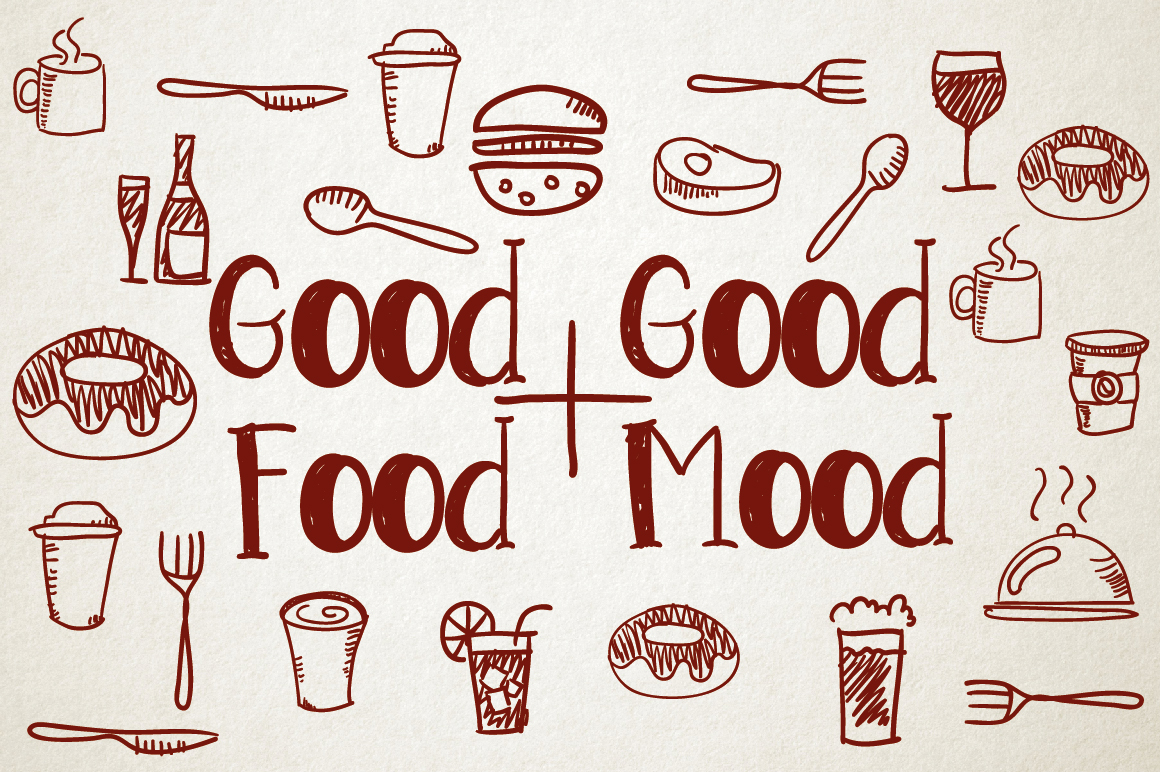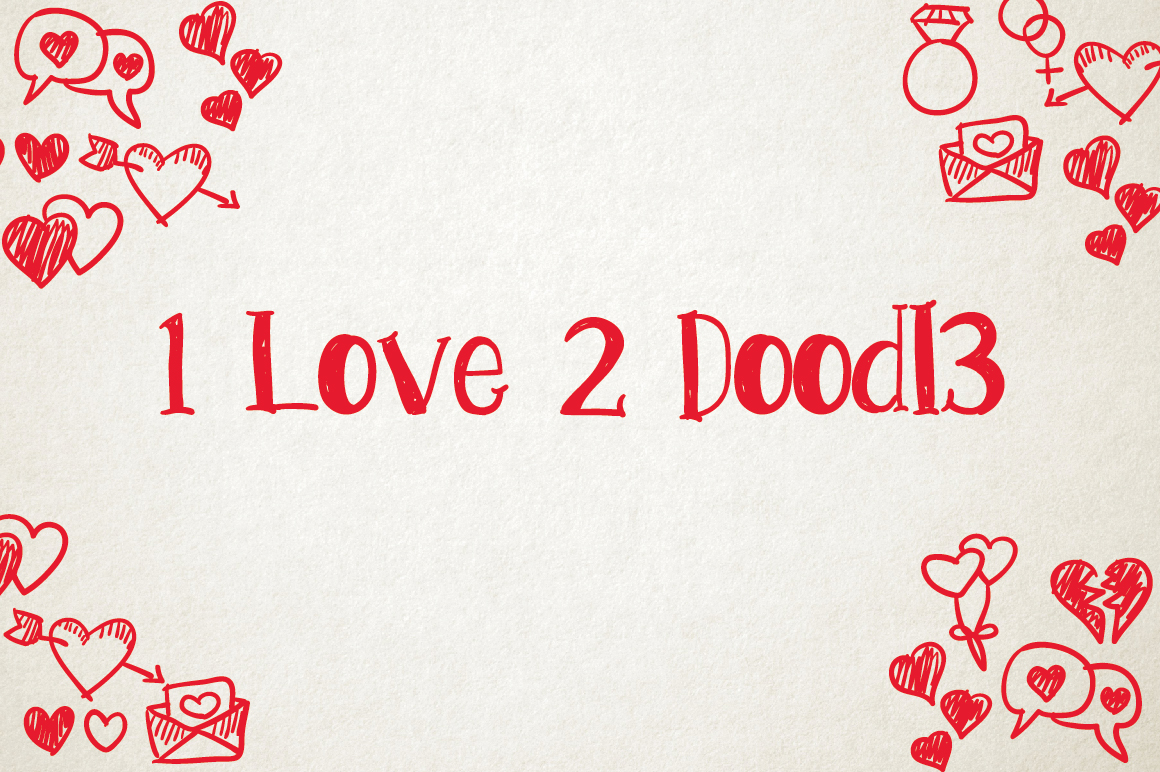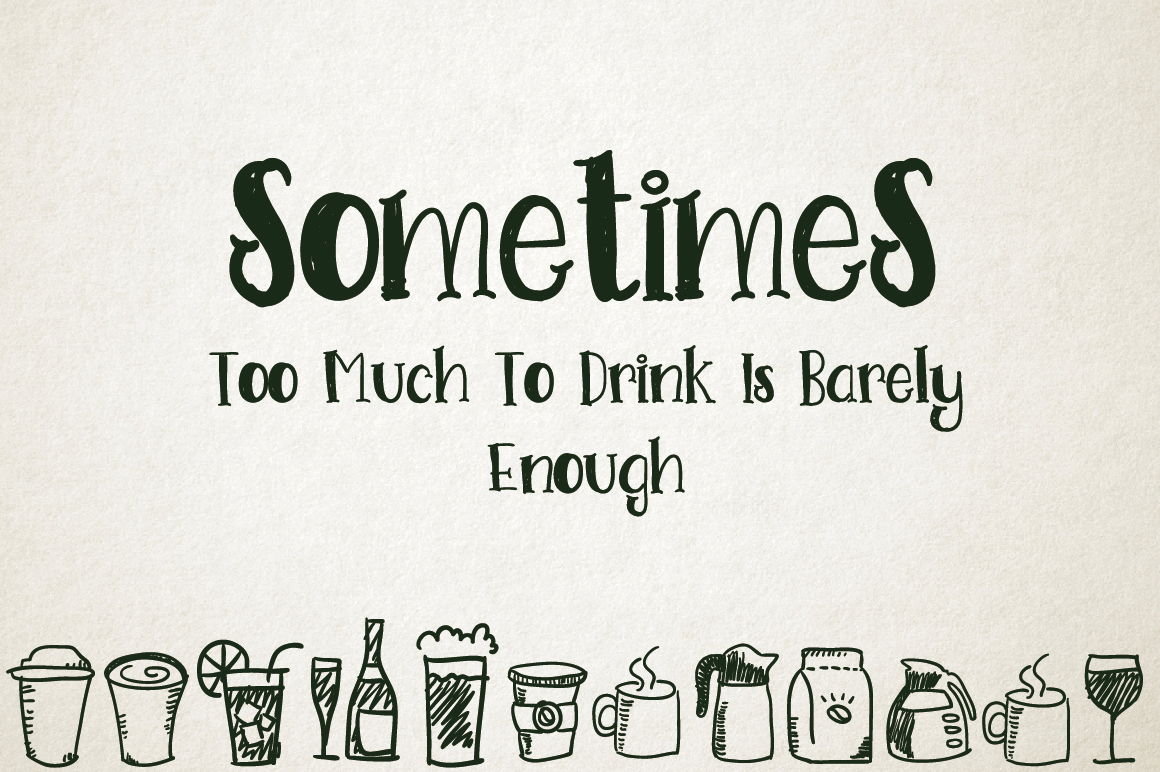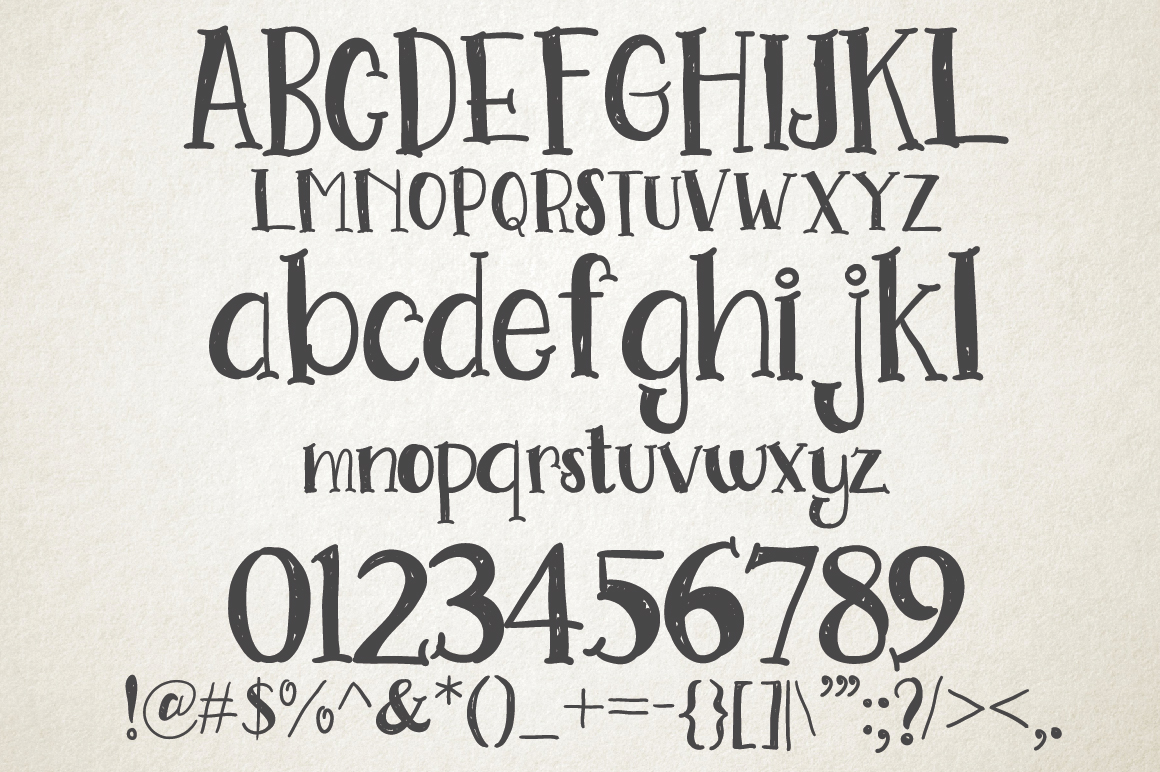
HomeScript FontsGo Doodling Font Script Fonts Go Doodling Font FacebookXPinterestWhatsApp Go Doodling Font Poster 2 Go Doodling Font Poster 3 Go Doodling Font Poster 4 Go Doodling Font Poster 5 About Go Doodling Font Go Doodling is a simple scratch font that comes with cute hand drawn doodles. DOWNLOAD NOW People also explored Rusthy Font Dark Saturday Font Ressica Font Sugako Font Lauren C. Brown Font Able Lingo BSL 1 Font Raceer Font Hello Calanthe Font Bounties Font 339 0 TagsGo Doodling Font Previous articleOrdinary FontNext articleSencillo Font LEAVE A REPLY Cancel reply Comment: Please enter your comment! Name:* Please enter your name here Email:* You have entered an incorrect email address! Please enter your email address here Website: Save my name, email, and website in this browser for the next time I comment. Personal Use Free Bashira Personal Use Free Read more about this font Eaglese Personal Use Free Read more about this font Wordan Personal Use Free Read more about this font Kilsonburg Personal Use Free Read more about this font BLOG Transform Your Website: Elevate Your Typography with 7 Best Web Font Generators Are you ready to transform your website's typography from ordinary to extraordinary? Great! Today, we're diving into the world of web font generators, which... Where to Buy American Fonts Online in 2024 Best Fonts for T-Shirt Design – Top 2025 Picks Free Fonts Risk: Why Free Fonts Can Be Dangerous for Designers